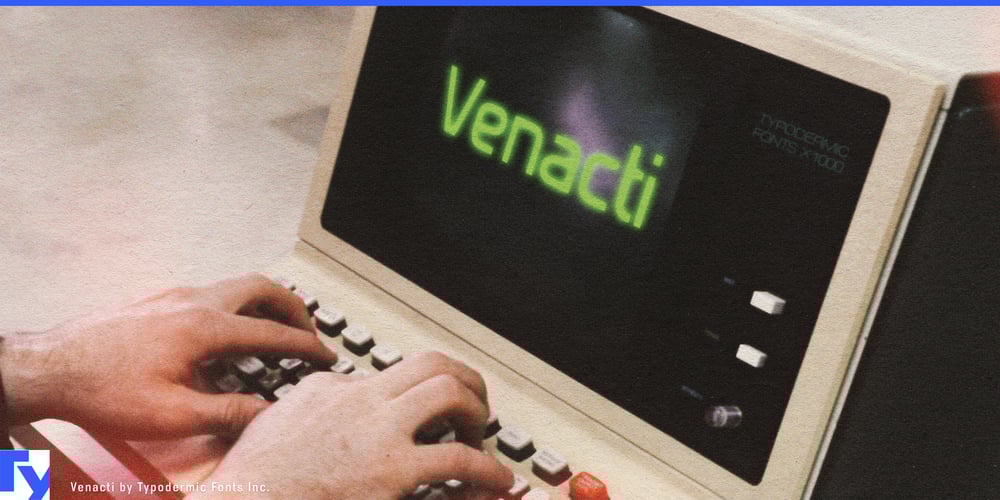
Venacti Font Family was designed by Ray Larabie and published by Typodermic. Venacti contains 6 styles and family package options. Forge ahead with Venacti, a typeface that harnesses the raw energy of 1970s industrial design and propels it into the future. This is a visual manifesto for those who dare to think big, build bold, and leave their mark on the world.Venacti’s DNA is pure industrial might. Its square letterforms stand like steel girders, while sleek corners cut through visual noise with scientific precision. Each character is a micro-machine, working in perfect harmony to construct messages that command attention and respect. From the laboratory to the factory floor, Venacti speaks the language of innovation with unwavering clarity. But Venacti isn’t content to live in the past. It takes the best of retro-futurism and recalibrates it for the modern age. With three meticulously crafted weights and their italic counterparts, Venacti offers the versatility to tackle any design challenge. Headlines that hit hard, body text that flows like a well-oiled machine, and everything in between—Venacti delivers with mechanical efficiency.Venacti’s robust character set breaks down linguistic barriers, supporting an extensive range of Latin-based European writing systems. From Albanian to Zulu, this typeface ensures your message maintains its industrial strength across borders and cultures. Whether you’re branding the next tech unicorn, designing packaging for cutting-edge products, or crafting editorial layouts that demand to be read, Venacti is your typographic powerhouse. Its timeless geometric forms ensure your designs won’t just capture the zeitgeist—they’ll help define it.Don’t let your typography be the weak link in your design chain. Download Venacti today and inject your projects with a dose of industrial-grade impact. With Venacti, you’re blueprinting the future of design.